Gen Z isn’t just about viral TikToks and aesthetic feeds—they also have a strong eye for design. From bold Instagram graphics to clean Notion pages, the fonts they choose speak volumes. But what kind of fonts are actually popular with Gen Z right now?
Let’s dive into the type styles Gen Z loves and why they’re so into them.
Gen Z is all about expressing identity, standing out, and breaking rules—and their font choices reflect that. Here’s what they usually go for:
1. Groovy Retro Fonts
Fonts inspired by the 70s and early 2000s are making a big comeback. They bring nostalgia—but with a modern edge.
Try: The Pasta – retro serif typeface. Inspired by 70’s design styles, a good decade where we saw many calm colors with groovy, bold, Stylish & 3 Dimensional logo display. The font really bring a good statement for your logo design and can be the image of a design.
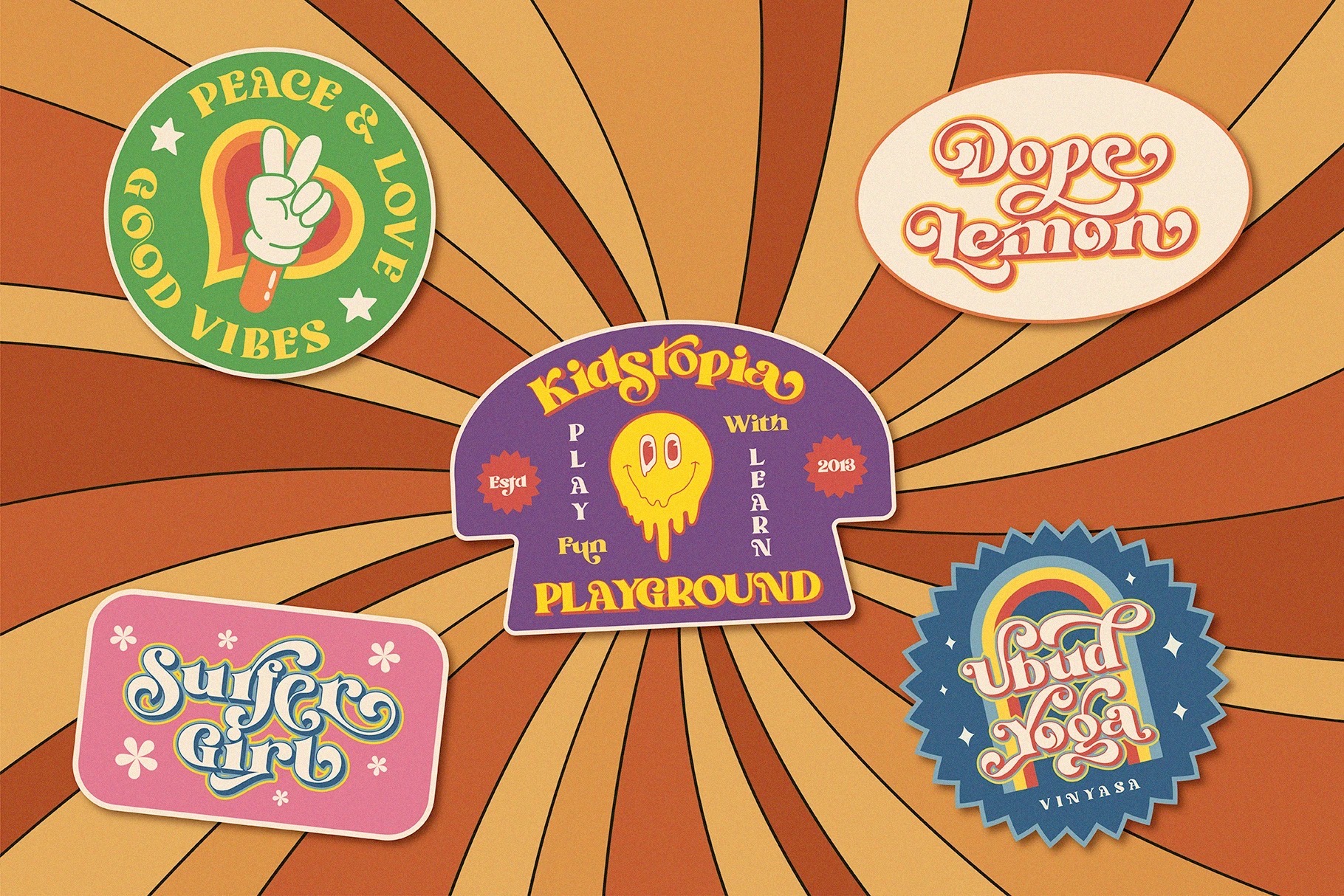
2. Chunky Rounded Sans Serifs
These fonts are friendly, playful, and perfect for branding Gen Z products—from skincare to streetwear.
Try: Glofium – a bold and chunky typeface that’s super fun to use and easy to read. It comes with 2 styles: Regular dan Italic, so you can mix things up and keep your design looking fresh. This font have characterize of warm, friendly and impossible to ignore. If you’re working on a poster, branding project, social media post, poster, big headlines, product packaging or just want your words to stand out, Glofium got your back! The shapes are thick, rounded and friendly – making your text look bold but still super easy to read.
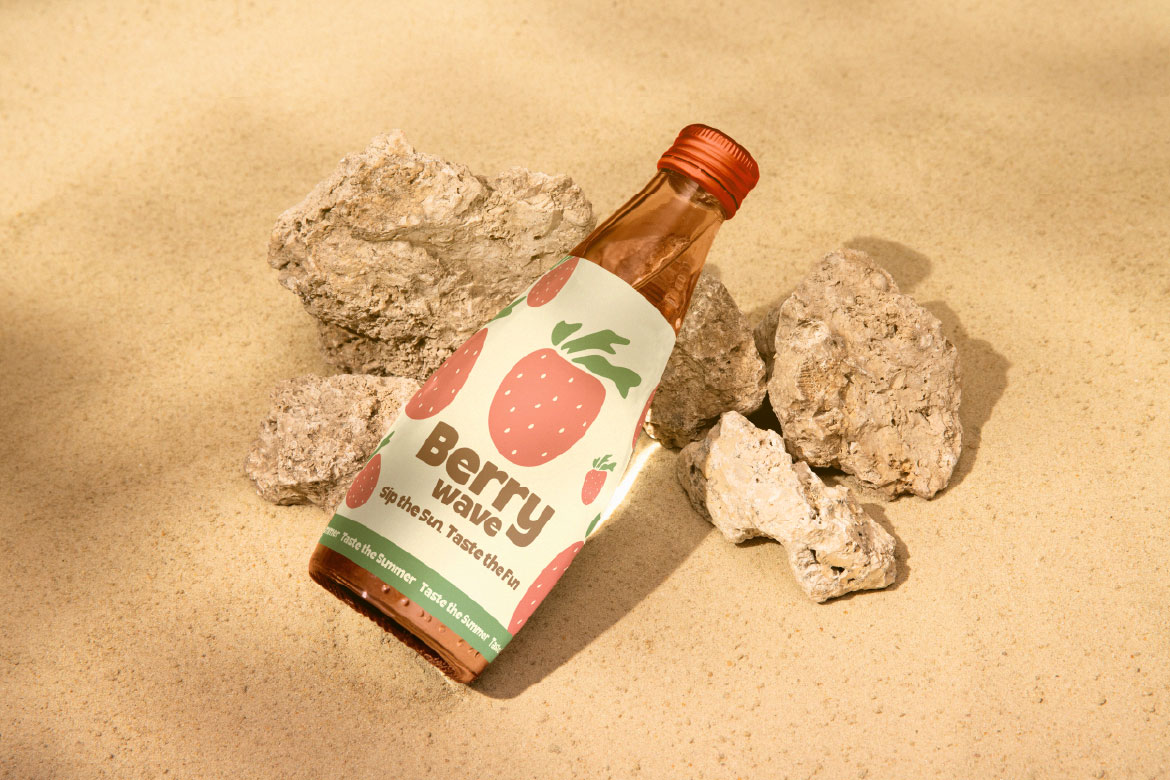
3. Handwritten or Doodle Fonts
Gen Z loves authenticity, and handwritten fonts give that personal, casual touch. Great for content that feels real, relatable, and human.
Try: Surfoul – a handpainted brush font that brings the spirit of summer right into your designs! this font is perfect for anyone looking to add a personal and energetic touch to their creative work. With bold strokes and a naturally expressive flow, Surfoul captures the carefree vibe of beach days, surfboards, and endless sunshine. Designed to feel spontaneous yet smooth, whether you’re working on branding, posters, or Instagram quotes, Surfoul brings that warm, playful character you need. Perfect for summer posters, travel blogs, beachwear brands, social media graphics, event promos, product packaging, and anything that needs a splash of tropical soul.
4. Minimalist Clean Fonts
For those who love “that girl” or “clean aesthetic” looks, minimalist sans serif fonts are the go-to. They’re sleek, versatile, and super aesthetic on planners, portfolios, or lifestyle blogs.
Try: Ragelo – a sleek and stylish display font that combines modern elegance with a minimalist touch. If you love clean lines and contemporary vibes, this font is made for you! Ragelo is an elegant font family with 3 weight variations: Light, Regular, and Bold. It also comes with alternates and ligatures, so you can customize it however you like and add extra aesthetic value to your design. Perfect for logos, magazines, product design, social media, business branding, editorials, fashion, packaging, and luxury brands.
5. Experimental Display Fonts
Gen Z isn’t afraid to be weird—and that includes fonts. Unique, artsy, and sometimes a little extra, these fonts are perfect for editorial posters and bold content.
Try: Liquify – where letters appear to flow and dance like water. Liquify captivating style of typography that mimic the appearance and behavior of liquids. This typeface feature characters that seem to flow, drip, or undulate, creating a dynamic and fluid visual effect. Making it perfect for the design that aim to convey energy and creativity. The smooth shape and create sense of harmony, allowing your text to blend seamlessly. Ideal for branding, event invitation, artistic project, and other design project with theme of innovation, playful, and creativity.
For Gen Z, design isn’t just decoration—it’s communication. They grew up online, where visual storytelling is everything. Fonts help:
Whether they’re posting on TikTok or designing a digital zine, Gen Z knows: the right font changes everything.
If you're a designer targeting Gen Z, your font choices really matter. Choose typefaces that are bold, expressive, nostalgic, or totally out-of-the-box. Gen Z wants fonts that feel fresh, creative, and real—just like them.